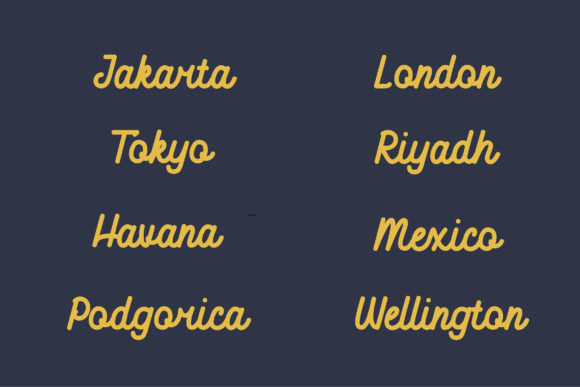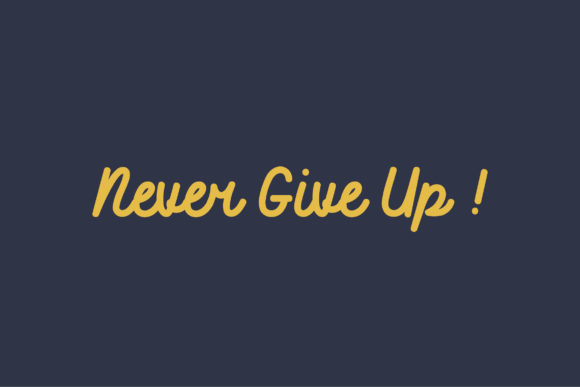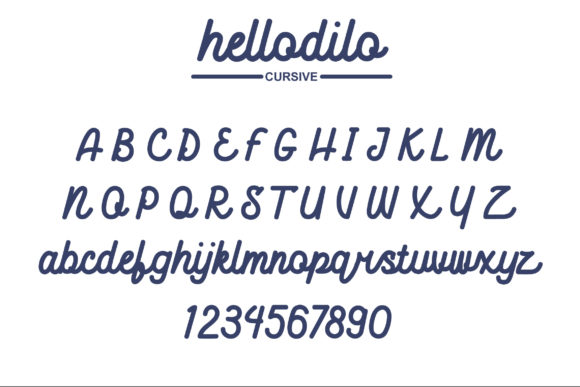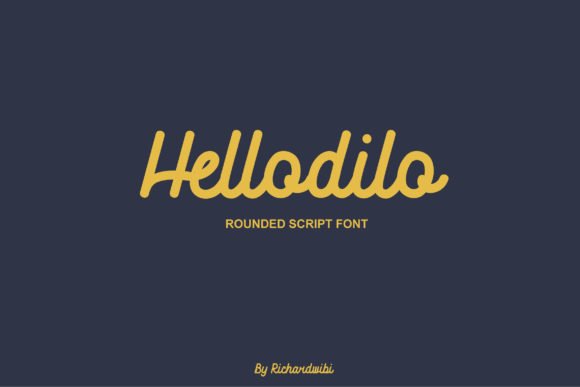
Introduction to Hellodilo Font
The Hellodilo is a rounded script font.
It has a clean and beautiful style which can be incorporated into many designs .
Key Features of Hellodilo Font
Why Choose Hellodilo Font?
Hellodilo Font offers exceptional quality and versatility, making it a valuable addition to your design toolkit. Whether you’re creating for personal projects or commercial use, Hellodilo Font delivers professional results.